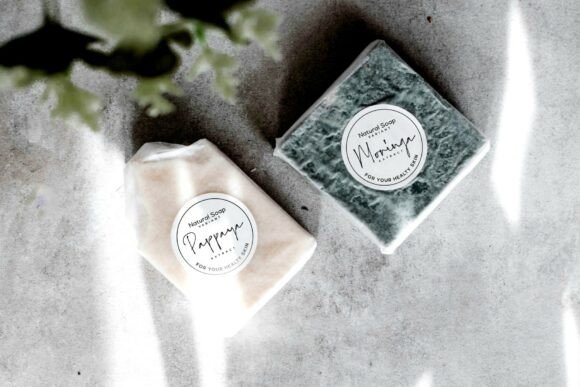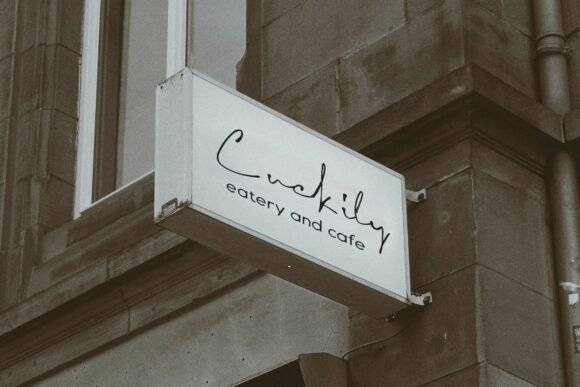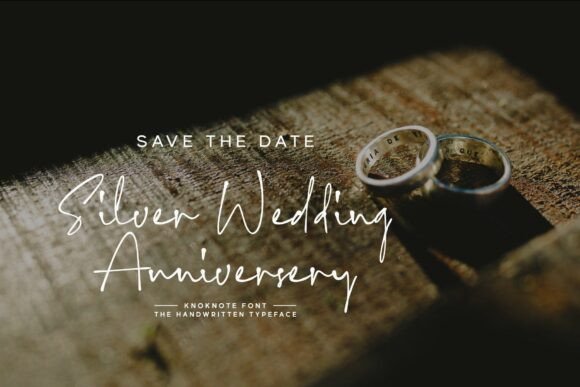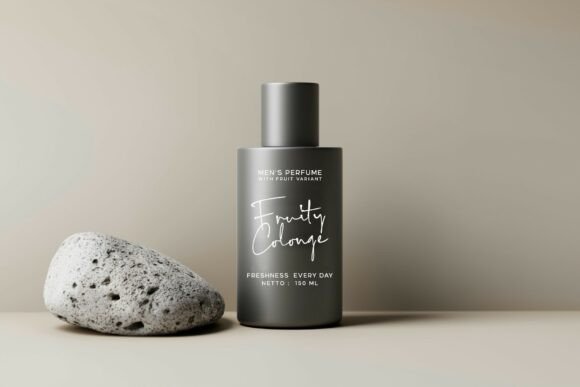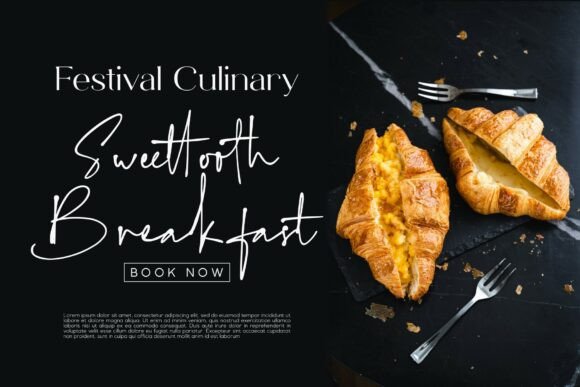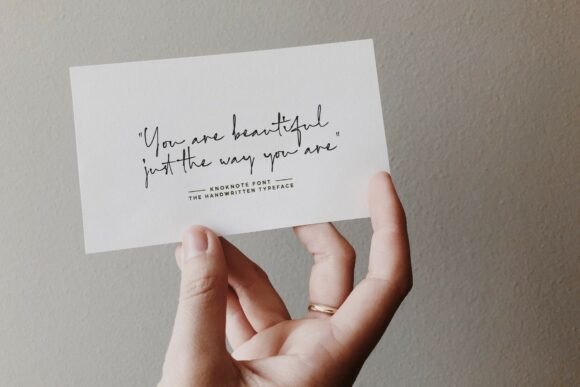
Introduction to Knoknote Font
Proudly present Knoknote font, the handwritten typeface.
This font is built with OpenType features including alternates, contextual alternates, stylistic alternates, and ligature sets to make the Knoknote font in every writing text look like naturally handwritten Knoknote font is perfect for quotes, signatures, branding, logotypes, greeting cards, poems, sticky notes, etc.
Knoknote Font offers exceptional quality and versatility, making it a valuable addition to your design toolkit. Whether you’re creating for personal projects or commercial use, Knoknote Font delivers professional results.